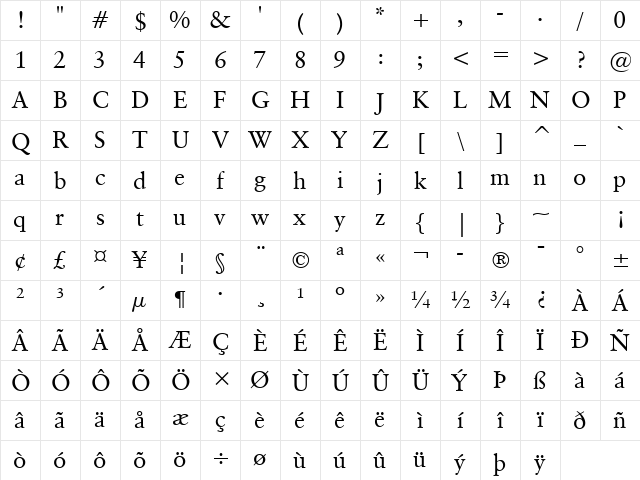
Complete ClassGarmnd BT Roman glyph index. Displaying only characters natively supported by ClassGarmnd BT Roman font.
ClassGarmnd BT is a composed and adaptable typeface that performs quietly and consistently across a wide range of design contexts.